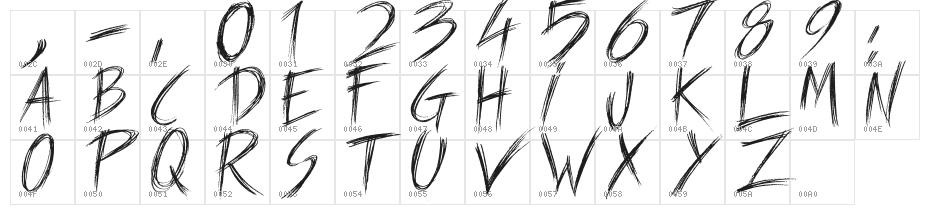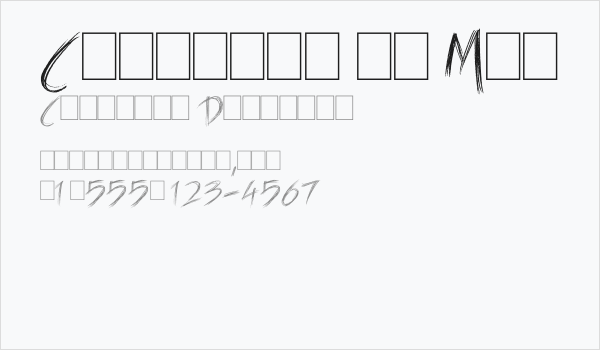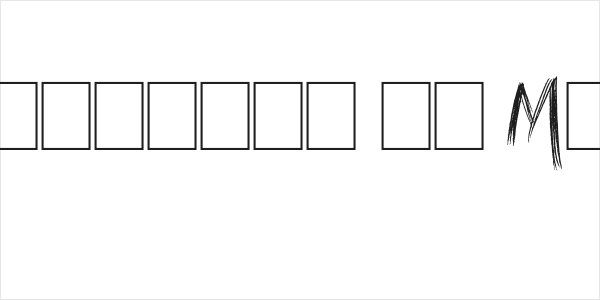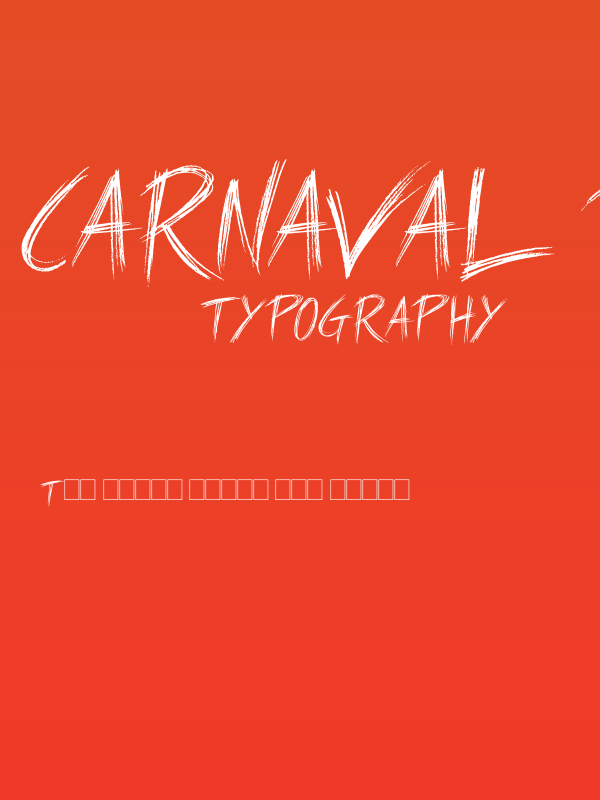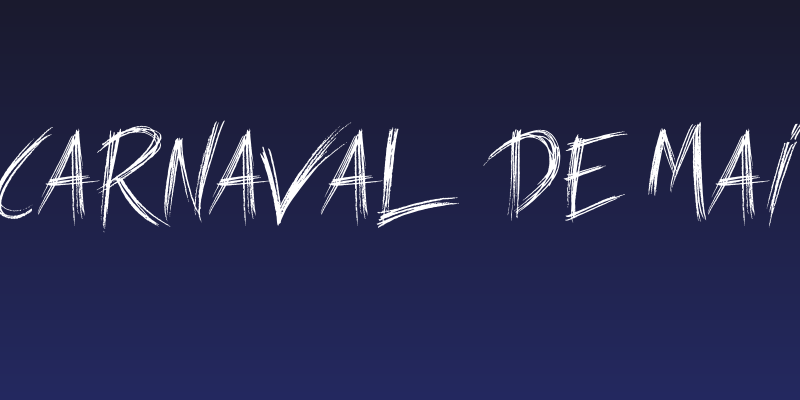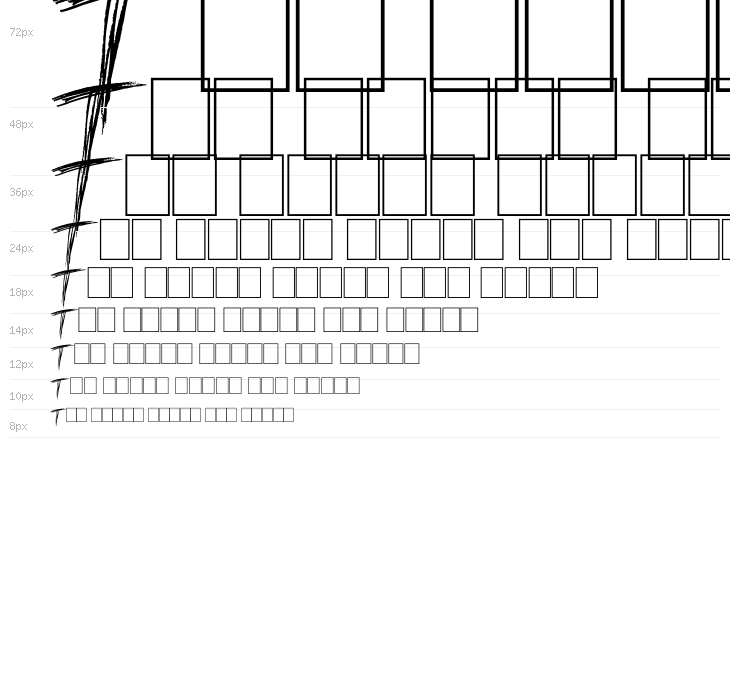
Carnaval de Mai Font
Carnaval de Mai Description
This font features a dynamic and energetic style, characterized by its brush-like strokes and irregular edges. The uppercase letters exhibit a sense of movement and spontaneity, with varying line thicknesses that create a lively and expressive appearance. The numerals and special characters maintain this energetic style, adding to the overall cohesive look. The font's design is reminiscent of hand-drawn or painted lettering, making it suitable for projects that require a bold and artistic touch.
| Proposed Projects | Ideal for event posters, artistic branding, album covers, and creative advertising campaigns. |